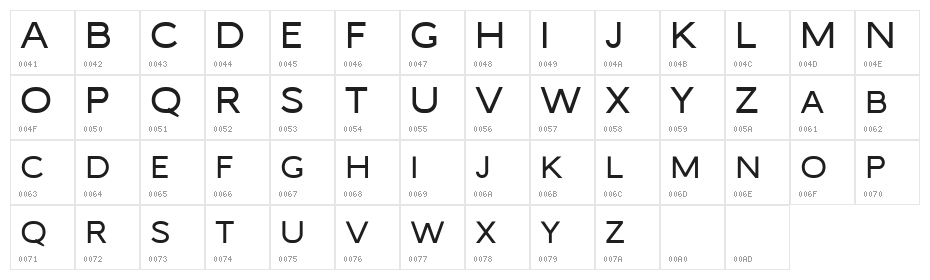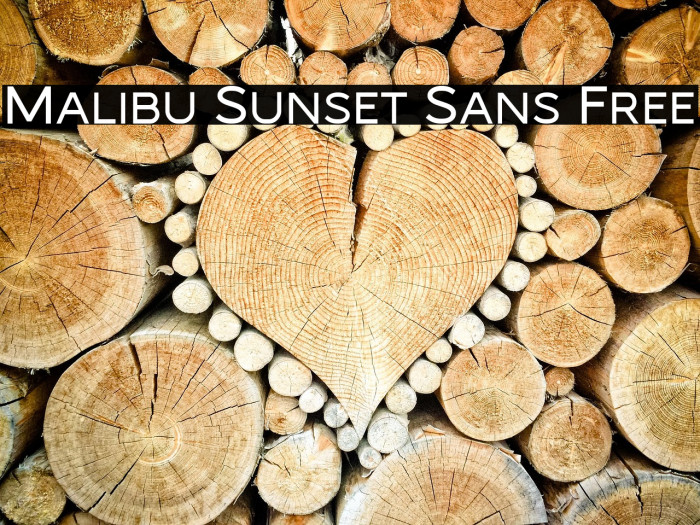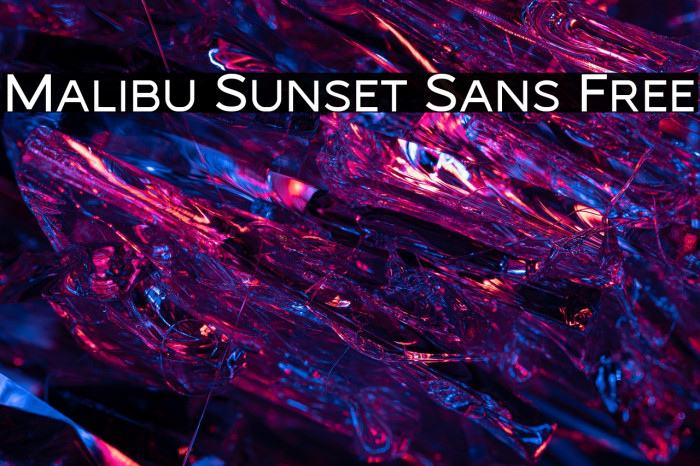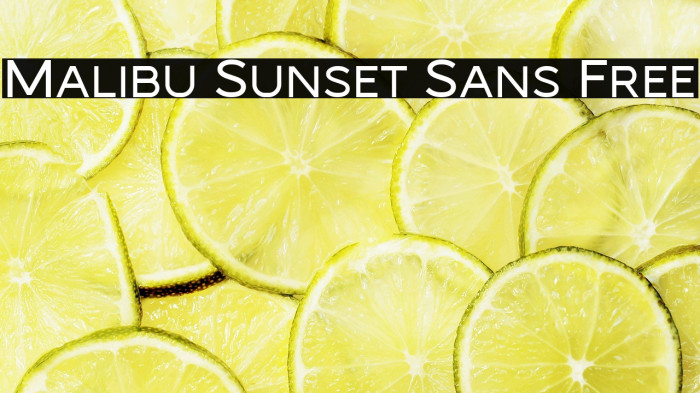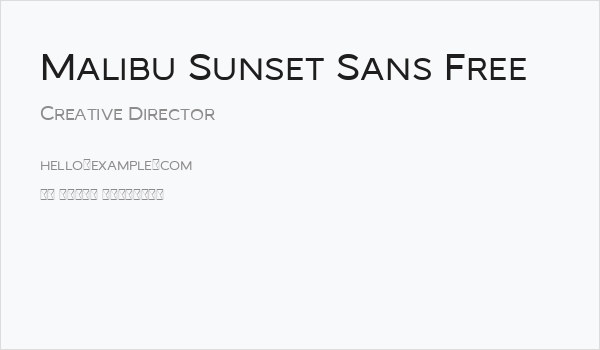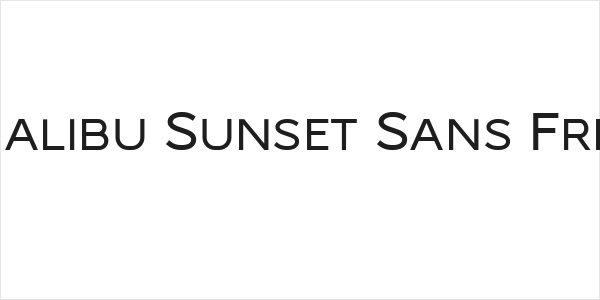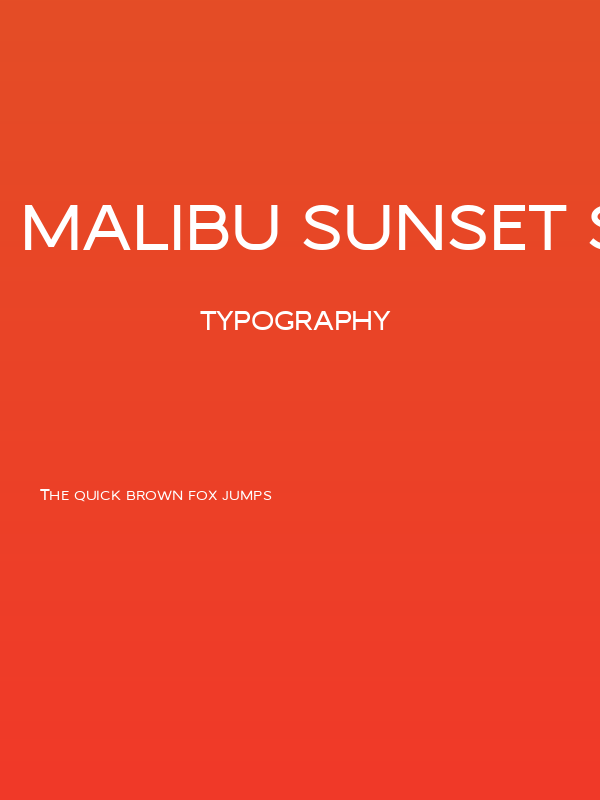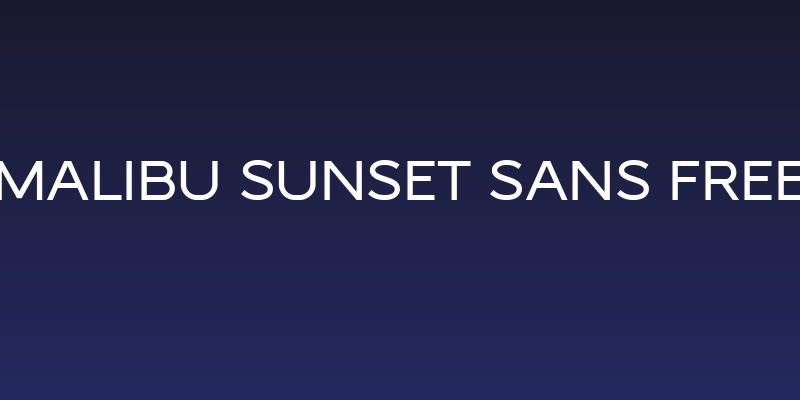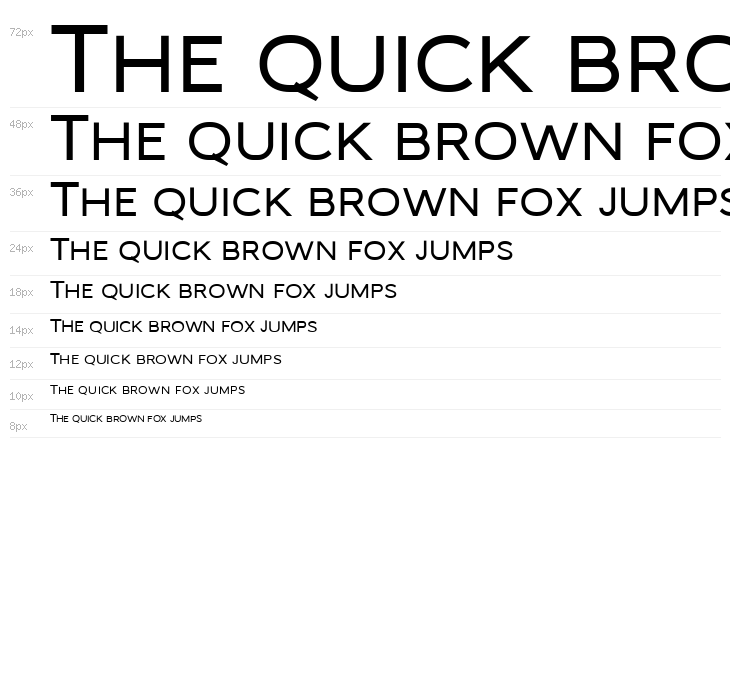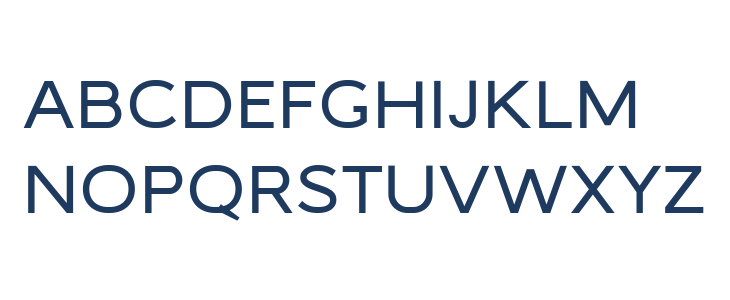
Malibu Sunset Sans Free Font
Malibu Sunset Sans Free Description
This font is a clean and modern sans-serif typeface characterized by its simplicity and clarity. The letters are evenly spaced, with a consistent stroke width that gives it a balanced and harmonious appearance. The design is straightforward, making it highly legible and versatile for various applications. Its geometric shapes and uniformity provide a contemporary feel, suitable for both digital and print media. The font's minimalistic style ensures it remains unobtrusive while effectively conveying information.